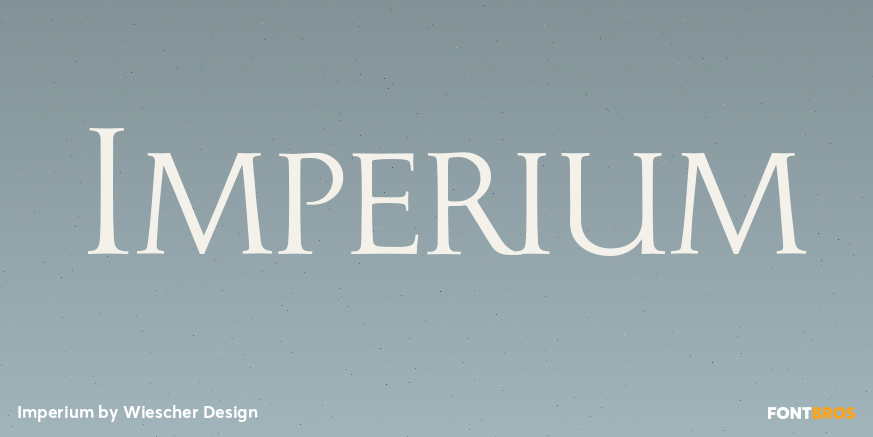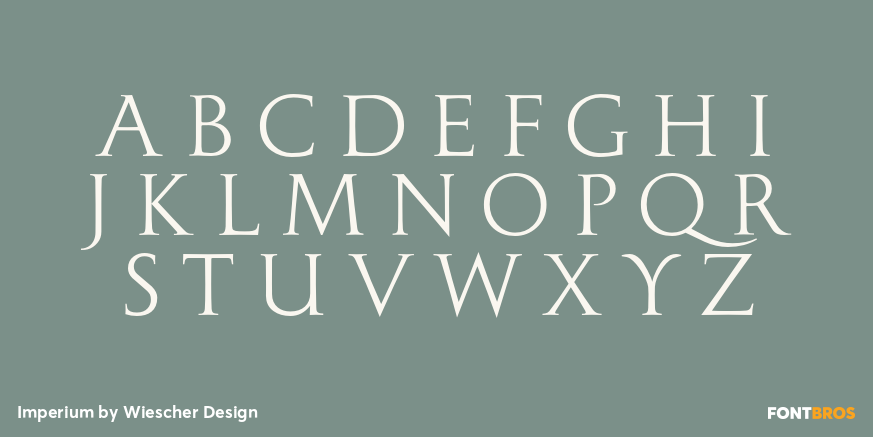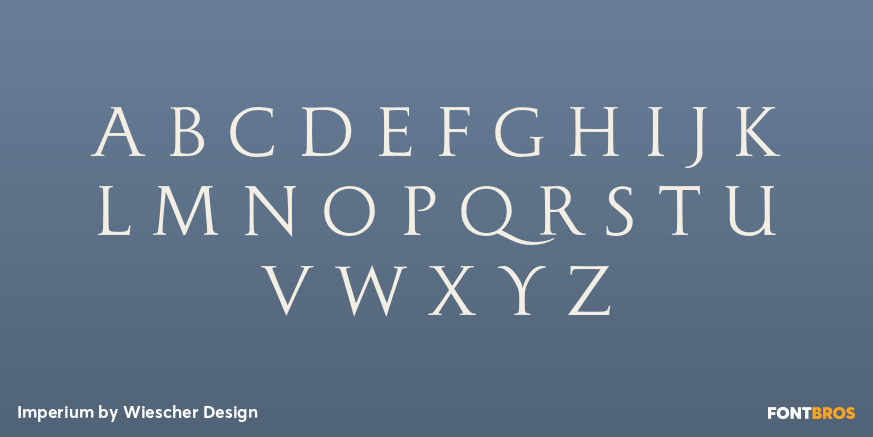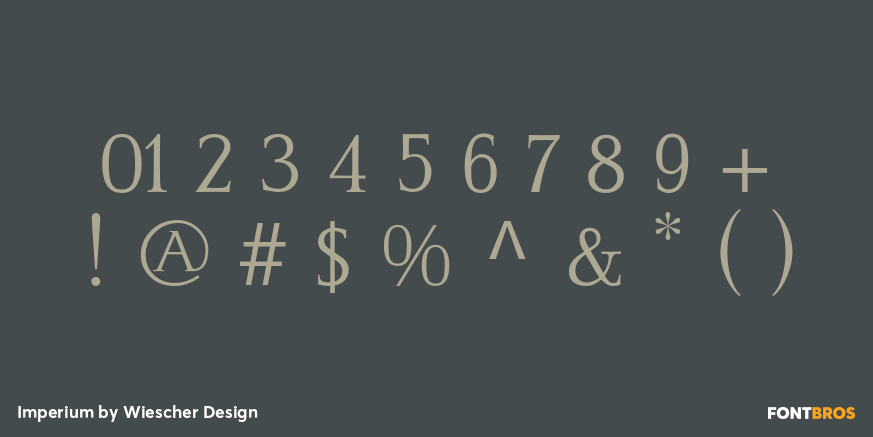
Imperium
Font Family by Wiescher Design
Imperium is the official font of the Imperium Romanum, the Roman Empire.
Only since my youngest son decided to learn Latin do I know that the Romans had another font for everyday use, Scriptura Vulgaris an italic script.
Among typomaniacs the official Capitalis Monumentalis from the Trajan column (113 AD) is considered the ultimate in Roman lettering. Based on this lettering a variety of font designs are available, but all of them have tried to better the Roman original. Albrecht D